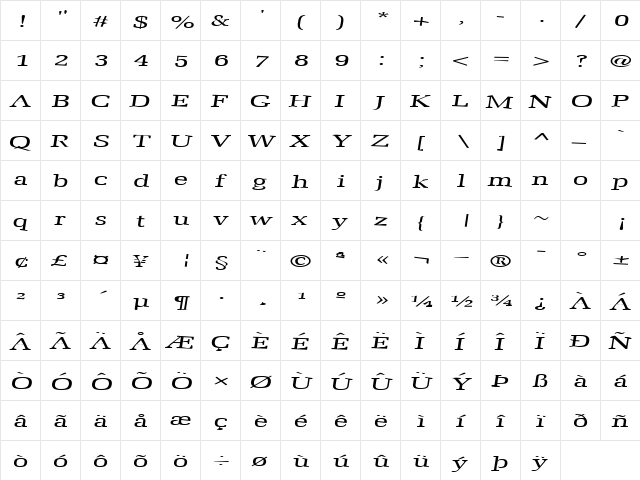
Under Regular
Design Context for Under Typeface
Under offers clean, dependable letterforms without strong stylistic allegiance, making it a practical choice for designers who need flexibility.
Pro Tip: Pair Under with a font of contrasting weight or personality to build a more expressive typographic hierarchy.